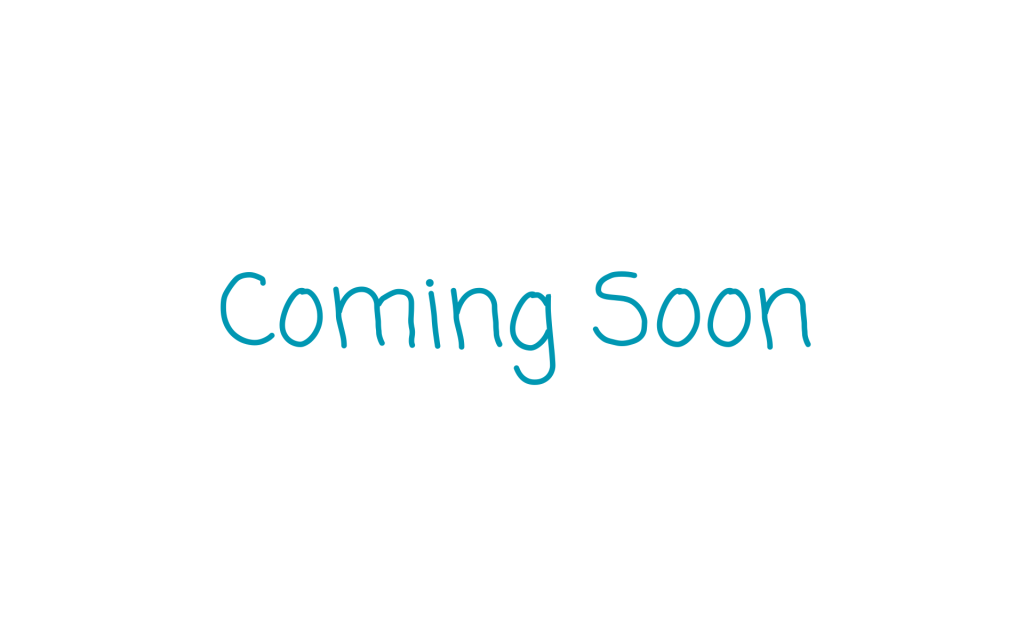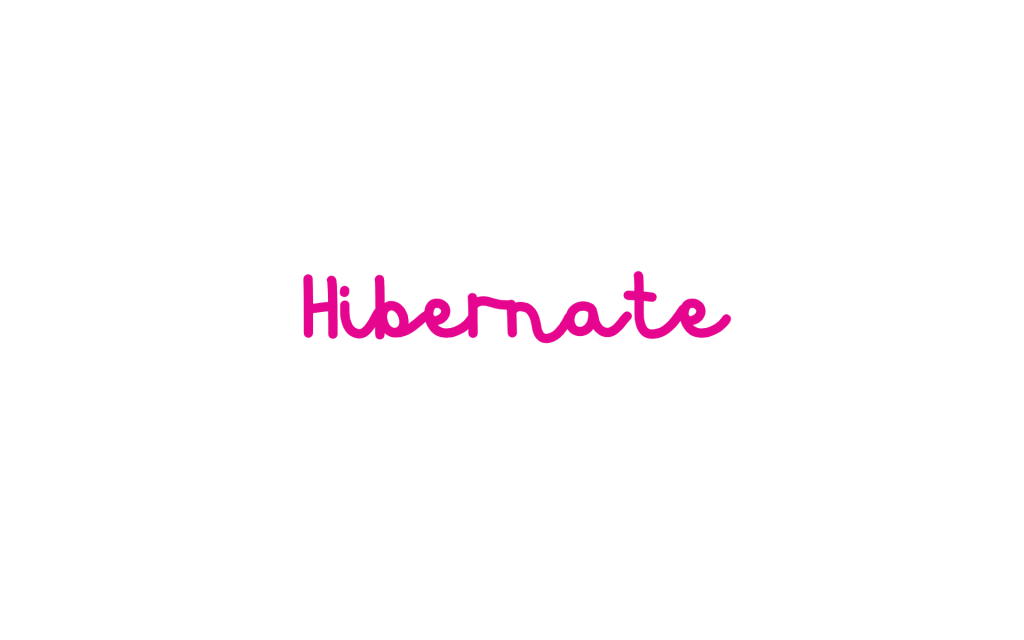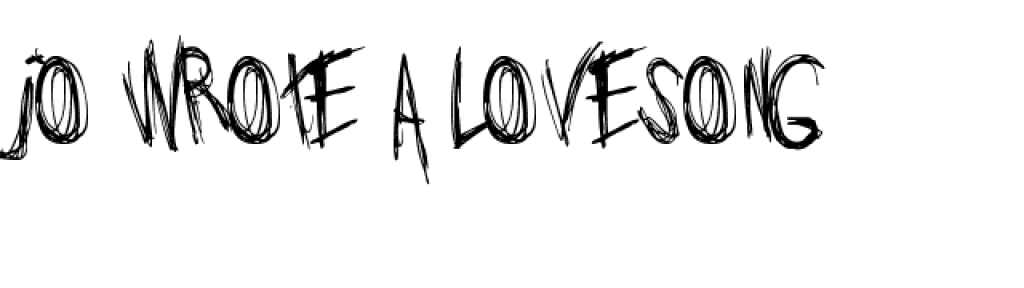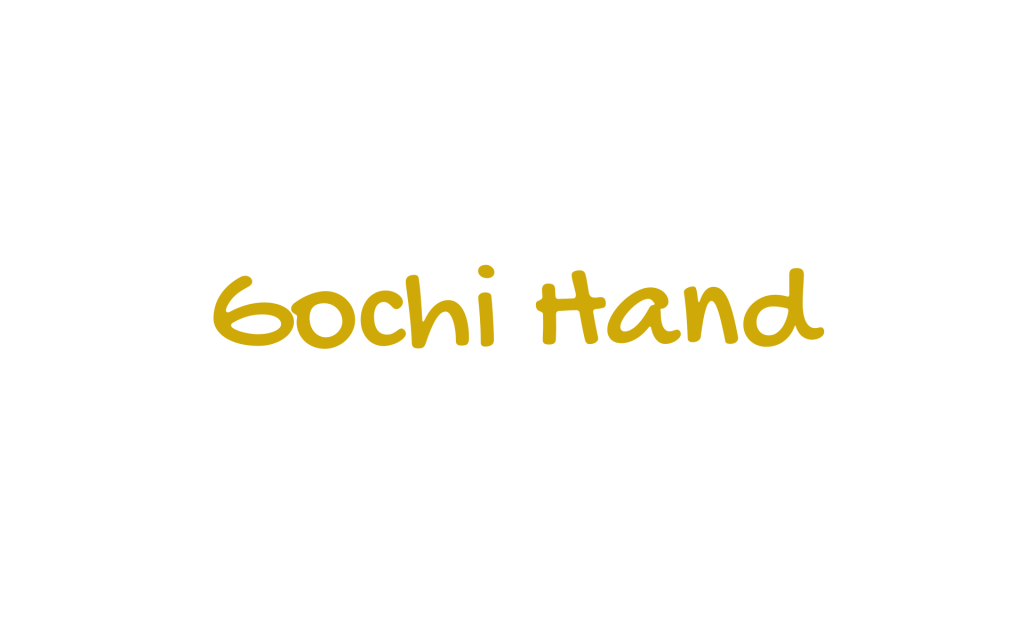
The best handwritten fonts in Canva include Alex Brush, Beth Ellen, Coming Soon, Hibernate, Avocado Regular, Pecita, etc. Canva has 100+ handwritten fonts ranging from cursive, juvenile, grunge, playful, etc.
Best Handwritten Fonts in Canva
The authentic and personal touch in handwritten fonts makes a design super special. That’s why Canva provides tons of free handwriting fonts for you. Here are the most famous handwritten fonts that you can use for your designs!
Handwritten
The most famous font on Canva for handwritten effects is “Handwritten”. This design is suitable for a design targeted at kids or teens. The design leans left and right giving a juvenile feel.
Useful for: Birthday Parties, Kid-Centric Businesses, Kids-Clinics, Educational Institutions (kindergarten, preschool, primary school), and Day Care.
Alex Brush
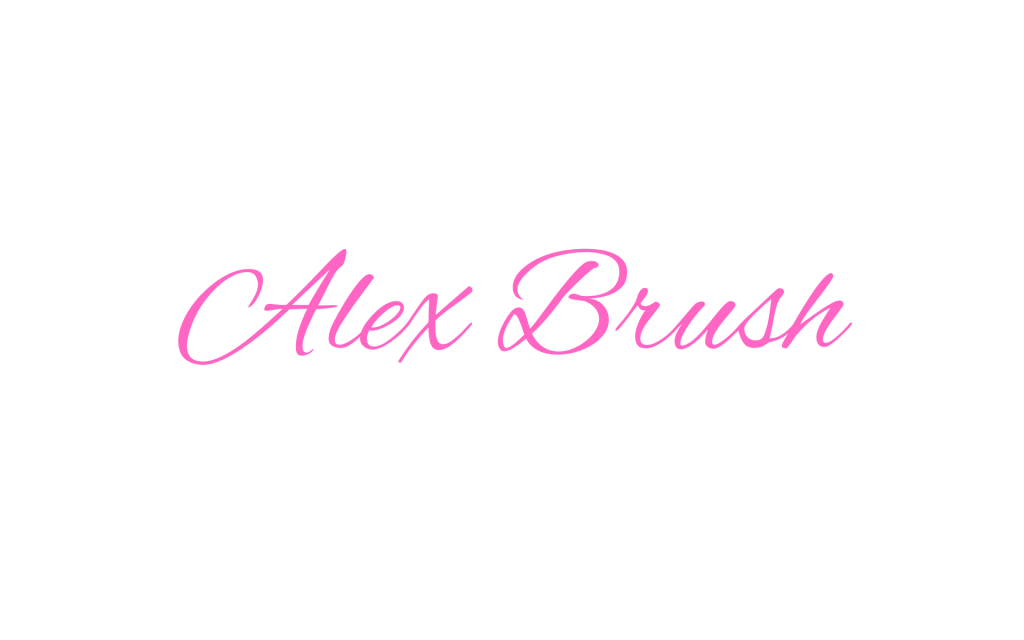
Alex Brush has a very sophisticated feel inspired by calligraphy font. It brings a professional yet personal touch to the designs and can be used for any elegant design. The dramatic caps of Alex Brush bring soul to the designs.
Useful for: Calligraphy Designs, Wedding Cards, Invitation Letters, Personal Letters, Bridal Showers Designs, Ball Gown Invitations, etc.
Beth Ellen
Beth Ellen is a beautiful handwritten font available on Canva with a joyful impact. The designer came up with it after the death of their mother Beth Ellen so it has a lot of sentiments and personal touch.
Useful for: Children’s Birthday Parties, Themed Party Invitations, Apparel Designs, Packaging, etc.
Sigher
Sigher has a vintage handwritten vibe. The grunge style is perfect for making professional designs within a grunge-themed.
Useful for: Wedding Invitations, Themed Party Invitations, Apparel Designs, Promotional Posts, etc.
Signature
Signature font has a stylish and elegant look that will make your designs look personal yet professional. It also has a calligraphic touch to it giving a subtle yet decent look. It is amazing for minimalistic designs.
Useful For: Elegant Party Invitations, Wedding Invitations, Apparel Designs, Posters, Themed Parties, Presentations.
Femen
Femen has a minimalist appearance with a clean design perfect for elegant posts and posters. Being a handwritten design, it is quite clear and easy to understand so you can also use it for websites.
Useful for: Digital Publications, Birthday Party Invitations, Apps, etc.
Avocado Regular
Avocado Regular has a calligraphic feel suitable for minimalist-themed invitation cards or websites. It is a chic font with a lot of practical uses. The thickness is perfect to read and understand with clarity so you can also use it professionally.
Useful for: Wedding Invitations, Wedding Websites, Apparel Designs, Minimalist Graphics, etc.
Celandine
Celandine has a grunge vibe but with a touch of elegance. The font is symmetrical making it perfect for professional websites and apps too. Also, the font has enough clarity due to the thick size and symmetry.
Useful for: Grunge Websites, Themed-Party Invitations, Posters, etc.
Pecita
Pecita is a cute handwritten font with connected representation. The asymmetry of the font makes it look very natural. The complex features of the font make it reach the handwritten font level precisely.
Useful for: Themed Invitations, Kids Birthday Party Posters and Invitations, Children-Targeted Ads and Billboards, Apparel Designs, etc.
Phitradesign Handwritten
Phitradesign has narrow letters with a sleek design. It has an out-of-the-box and contemporary feel suitable for any website and app looking for a chic design. The font has enough clarity to read from afar so it can be used for professional branding.
Useful for: Chic Websites, Brand Posters, Social Media Posts, Invitations for Kids’ Birthday Parties, Themed Party Invites, etc.
Bright Sunshine
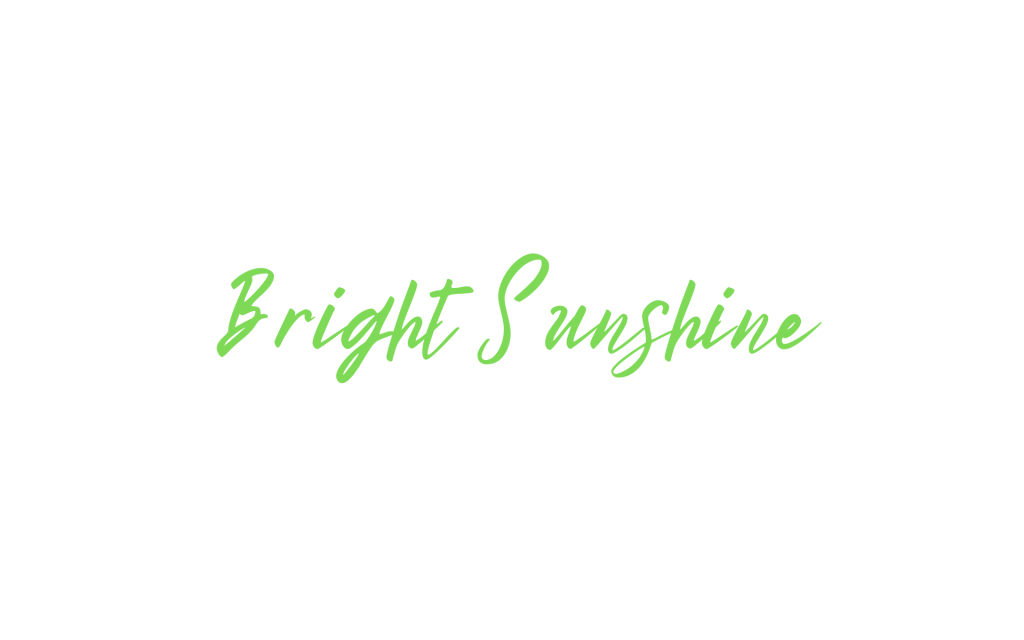
Bright Sunshine has a beautiful and elegant design with delicate strokes and curves. It resembles handwriting quite well and is perfect for any contemporary website. You can use Bright Sunshine for minimalist-themed designs, apps, apparel, etc.
Useful for: Wedding Invitations, Minimalist-Themed Invitations, Vintage Designs, Posters, Apparels, etc.
Canva Student Font Dotted
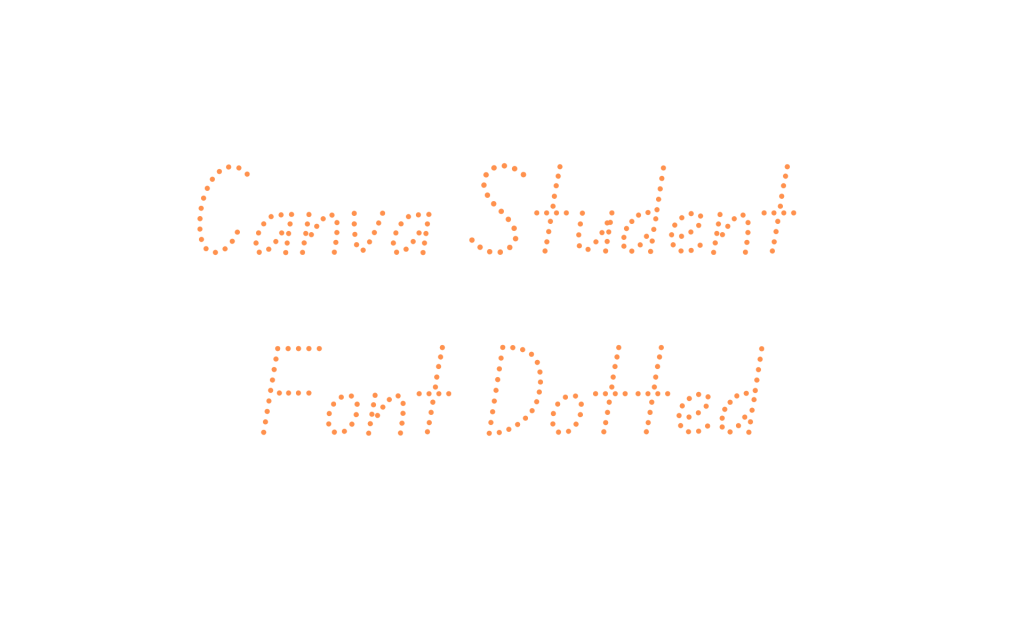
Canva Student Font Dotted is a simple font with a dotted appearance. It has a straight-up sans-serif design with the uniqueness of dots. You can use it for any children-targeted business or a playful design.
Useful for: Children’s Birthday Party Invitations, Kids-Targeted Websites or Posters, Social Media Posts, etc.
Which Font Mimics Cursive Handwriting?
Anatasia Script and Distillery Script both have a cursive handwriting feel. Both these fonts are available on Canva and you can use them for various designs for free.
Conclusion